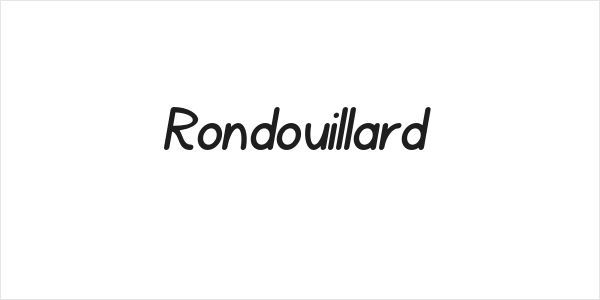
Rondouillard Font
Rondouillard Description
This font features a playful and rounded style, characterized by its smooth, flowing lines and slightly slanted orientation. The uppercase letters maintain a consistent height with a gentle curve, while the lowercase letters exhibit a more pronounced roundness, giving the font a friendly and approachable appearance. The numerals are bold and clear, ensuring readability. Special characters are designed with the same playful curves, integrating seamlessly with the overall style. This font's unique charm makes it suitable for creative and informal applications.
| Proposed Projects | Ideal for children's books, playful branding, casual invitations, and creative posters. |